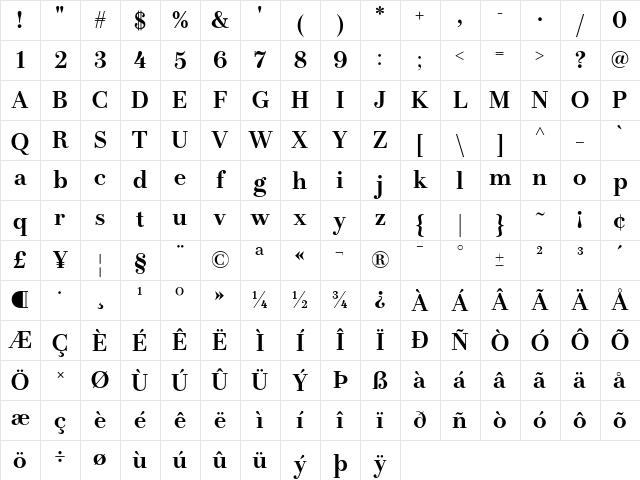
LT Afficher Neue Text Bold
Designer: Daniel Lyons
LT Afficher Neue Text Family
Design Context for LT Afficher Neue Text
LT Afficher Neue Text is a composed and adaptable typeface that performs quietly and consistently across a wide range of design contexts. Its bold stroke weight gives it real presence on the page.